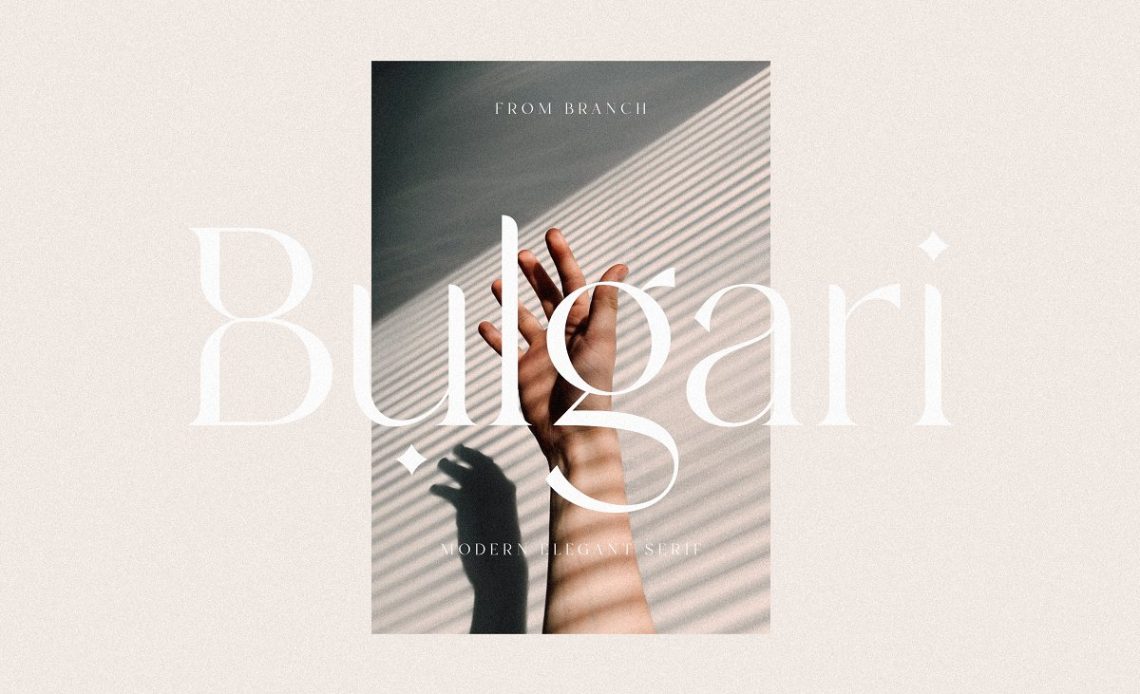
Introducing our latest creation, the "Bulgari - Modern Font" by Sans and Sons. This serif font family, created by the talented Angga Suwista, exudes elegance and sophistication that is perfect for various design projects.
The font's versatility is a standout feature, making it an ideal choice for branding, logos, invitations, master heads, and more. Its multilingual support and alternate characters make it even more flexible, giving designers endless creative possibilities.
One of the best things about Bulgari is how easy it is to use. The font comes with instructions that are simple and straightforward, making it accessible to designers of all levels. The PUA encoded ligatures and stylistic alternates give users even more design choices, making it a must-have in any designer's toolkit.
In summary, the "Bulgari - Modern Font" is an excellent choice for designers who want to add elegance and sophistication to their projects. Its versatility, ease of use, and extensive language support make it an essential addition to any design toolkit. Try it out and elevate your design game today!